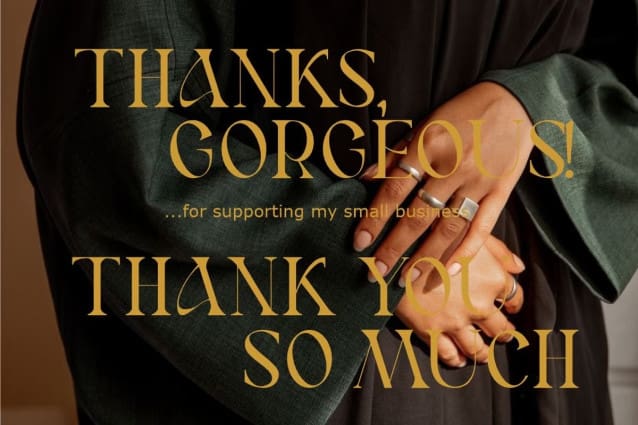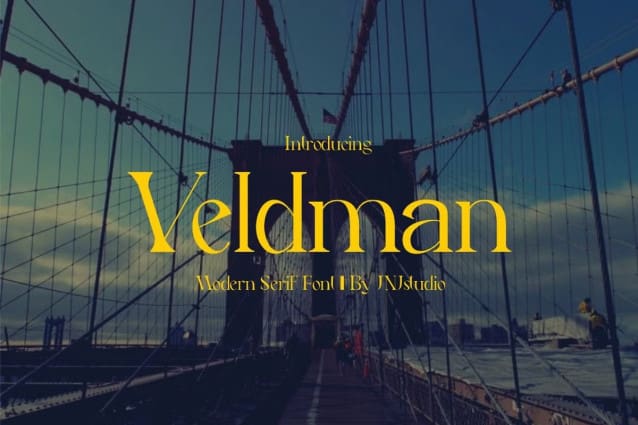
Veldman Font
Veldman Font is a striking Display Serif font characterized by its bold, elegant letterforms. The font combines classic serif elements with a modern twist, making it perfect for headlines, posters, and branding that require a touch of sophistication and impact. Each character in Veldman is meticulously crafted with strong contrast between thick and thin strokes, sharp serifs, and unique, expressive details that enhance readability while maintaining a distinctive personality. Veldman Font is versatile and commands attention, whether used in digital or print media.